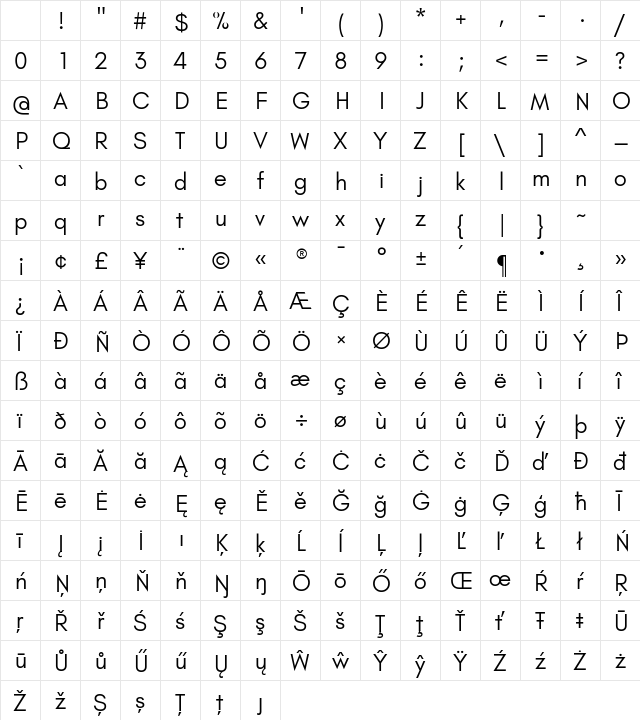
Complete Glacial Indifference Regular glyph index. Displaying only characters natively supported by Glacial Indifference Regular font.
Glacial Indifference is a composed and adaptable typeface that performs quietly and consistently across a wide range of design contexts.